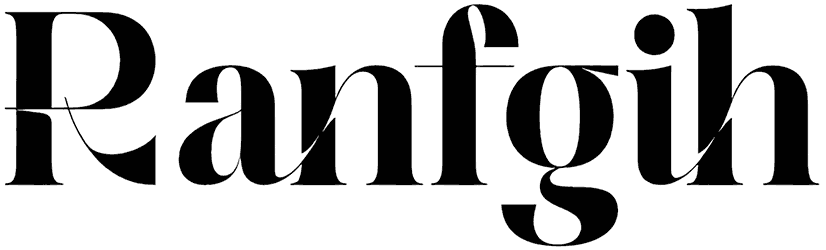
Ranfgih Font
So what if Ranfgih is not the easiest font to pronounce? It’s a ligature font. That’s all that matters. And the fact that all these ligatures are done most subtly only makes things more stylish.
It can instantly become your favorite among hundreds of fancy fonts, and you just can’t help it. Let’s just hope you soon get a logo project for a beauty center, art gallery, or something like that, somewhere you can put Ranfgih to use.